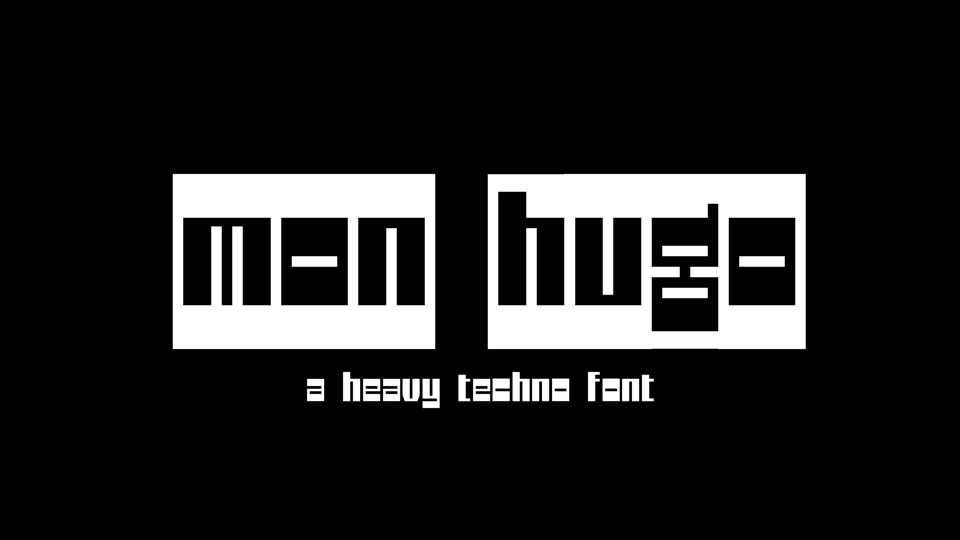
Download Mon Hugo font, a heavy techno display typeface without capitals. Mon Hugo has two styles: letters with background and letters itself, includes stylistic set and many languages support.
Designer: Vika Usmanova